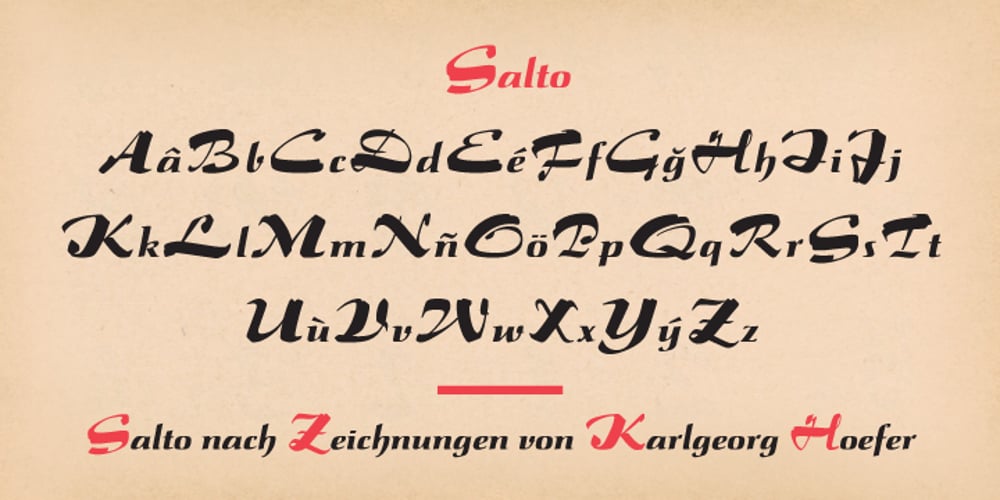
Salto Font Family was designed by Karlgeorg Hoefer and published by Linotype. Salto contains 1 styles and family package options. Salto was developed by Karlgeorg Hoefer and introduced in 1952 by the foundry Gebr. Klingspor in Offenbach. The capital letters were drawn with a brush, the lower case with a broad-tipped pen developed by Hoefer especially for the task. Salto reflects the Zeitgeist of the 1950s, appearing frequently in advertisements during the years of the Wirtschaftswunder. The font’s extravagance and dynamic quality arise from the contrast between the strong, zestful capitals and the more reserved lower case letters.